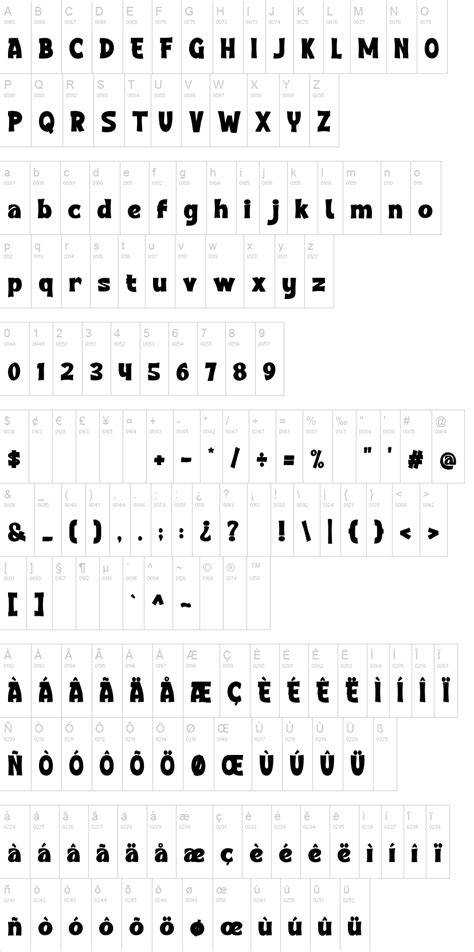
Hey guys! Are you looking to give your projects a unique and modern twist? Let’s dive into the world of the OSCBahamasSC Heavy font ! This font is a fantastic choice for adding a bold and contemporary feel to various design endeavors. In this article, we’ll explore what makes this font special, where you can find it for free, and how to make the most of it in your creative projects. So, stick around and let’s get started!
What is OSCBahamasSC Heavy Font?
Let’s start by understanding what the OSCBahamasSC Heavy font actually is . This typeface is characterized by its strong, bold lines and modern aesthetic, making it a solid option for headlines, posters, branding materials, and more. The “Heavy” designation means it has a thicker stroke weight, giving your text a powerful and attention-grabbing presence. Think of it as the font equivalent of a strong handshake – it makes an immediate impact.
Why would you choose this font over others? Well, its clean and contemporary design works well in a variety of contexts. Whether you’re designing a sleek website, a striking advertisement, or eye-catching social media graphics, OSCBahamasSC Heavy can help you achieve a professional and modern look. Plus, its legibility remains intact even at larger sizes, making it incredibly versatile for different applications. Another cool fact, the unique letterforms provide a touch of individuality, setting it apart from more generic heavy fonts. This distinctiveness can help your designs stand out and leave a lasting impression.
When comparing it to other fonts, OSCBahamasSC Heavy strikes a balance between being assertive and approachable. Unlike some overly aggressive fonts that can feel overwhelming, this one maintains a sense of clarity and balance. This makes it a great choice for projects where you want to convey strength without sacrificing readability. It’s also worth noting that while it’s a “heavy” font, the letter spacing and overall design prevent it from feeling too cramped or cluttered. This careful attention to detail enhances its usability and makes it a reliable option for designers of all levels.
How to Use OSCBahamasSC Heavy Font in Your Projects
Okay, you’ve got the font downloaded – now what? Let’s talk about how to effectively use OSCBahamasSC Heavy in your design projects. The key is to leverage its strengths while being mindful of its limitations.
Headlines and Titles: This font really shines when used for headlines and titles. Its bold weight and modern design instantly grab attention and make a statement. Use it for website headers, poster titles, or even book covers. Just make sure the surrounding design elements complement its strong presence. For example, pair it with a clean, minimalist layout to let the font really stand out.
Branding: If you’re working on a branding project, OSCBahamasSC Heavy can be a fantastic choice for logos and brand names. Its distinct letterforms can help create a memorable and recognizable brand identity. Consider using it in combination with a lighter, more subtle font for body text to create a visual hierarchy. This will help guide the viewer’s eye and ensure that the overall design feels balanced and cohesive.
Posters and Flyers: Need to create a poster or flyer that really pops? OSCBahamasSC Heavy is your friend. Use it for key messaging and call-to-actions to make sure they stand out. Experiment with different colors and backgrounds to see what works best. Remember, contrast is key. Using a light font on a dark background (or vice versa) can help enhance readability and visual impact.
So there you have it – a comprehensive guide to OSCBahamasSC Heavy font. Whether you’re designing a website, creating marketing materials, or just looking to add a touch of modernity to your projects, this font is a fantastic choice. Remember to download it from a reputable source, respect the licensing terms, and use it strategically in your designs. With its bold weight, clean lines, and contemporary aesthetic, OSCBahamasSC Heavy is sure to make a lasting impression. Now go out there and create something amazing!